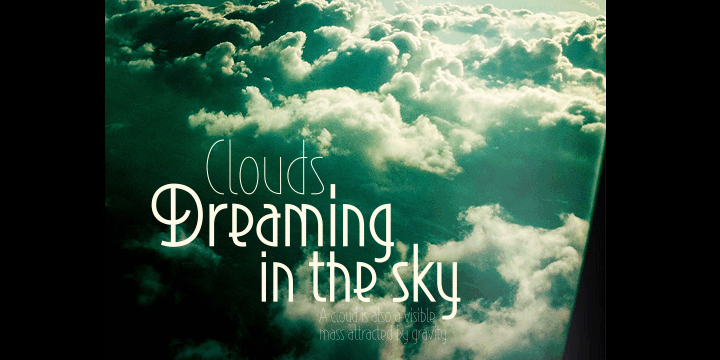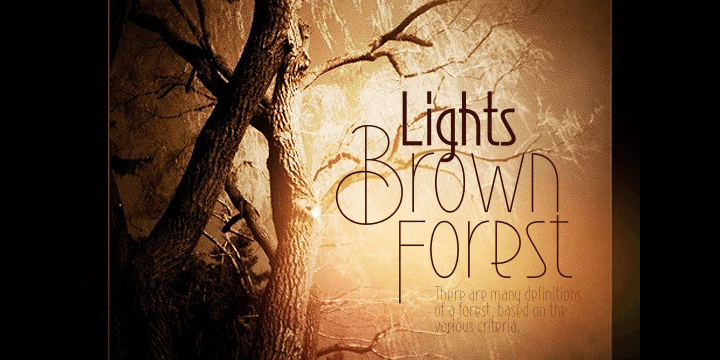
About Reader
Reader is a custom sans font which is applicable for any type of graphic design – web, print, motion graphics etc and perfect for t-shirts and other items.